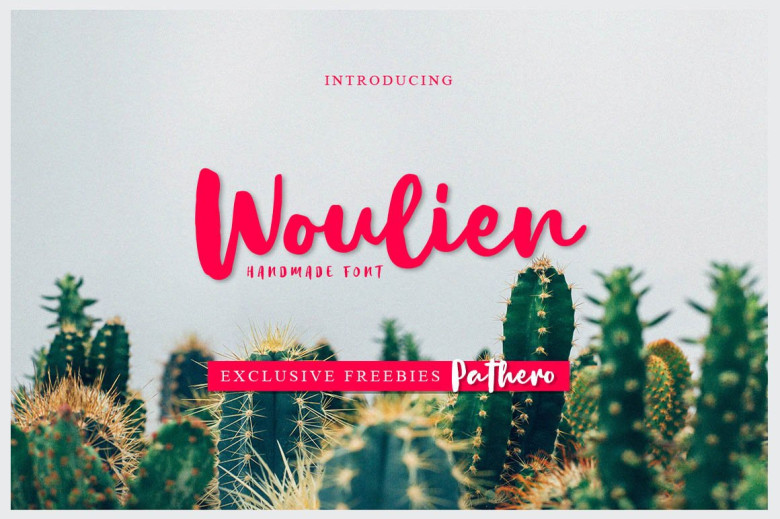
Woulien Script Font
Thank you for your interest in this font. It is a handmade brush font. Introducing Woulien! Woulien shared by Pathero Studio. Woulien Script is a beautiful handmade brush font, with a bold weight perfect for adding some romance and charm to your designs. This script functions most strongly as a display or headline font. suitable for logo, logotype, branding, fashion, label, book cover, t-shirt, instagram post, and other.